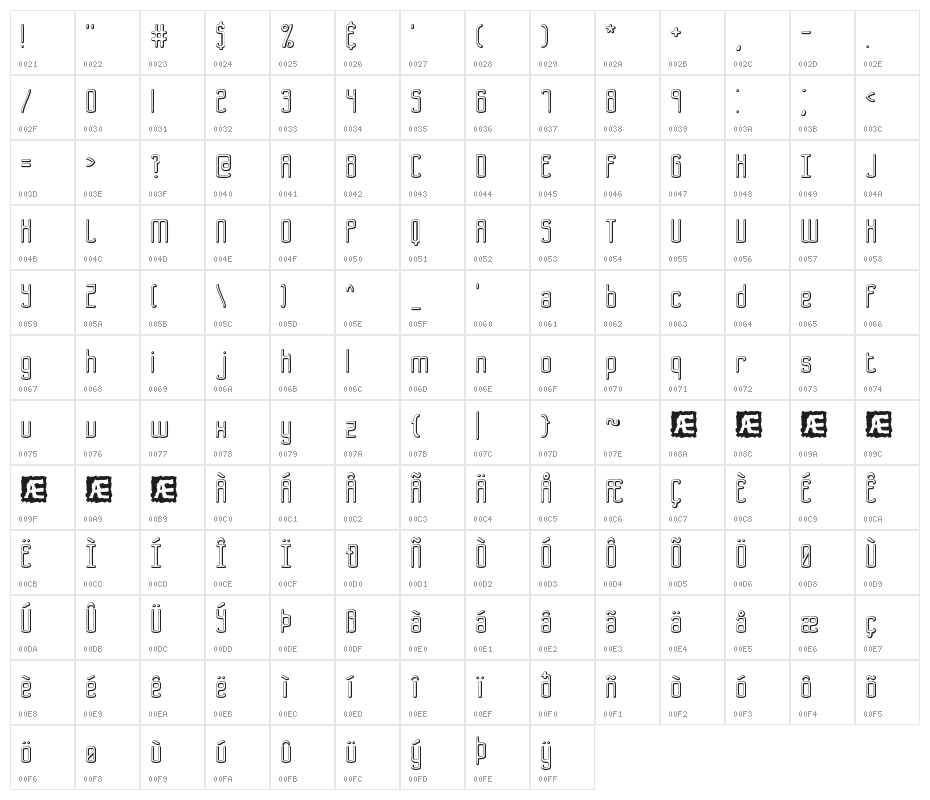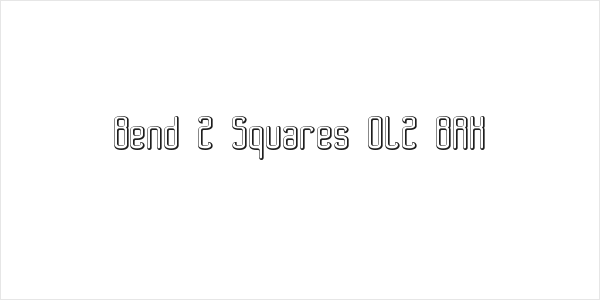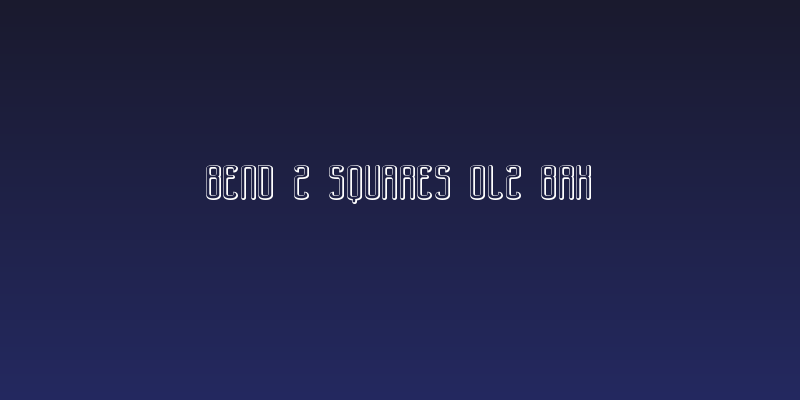
Bend 2 Squares OL2 BRK Font
Bend 2 Squares OL2 BRK Description
This font features a unique, outlined style with rounded edges and a geometric structure. Each character is crafted with a consistent line thickness, creating a cohesive and modern appearance. The uppercase and lowercase letters maintain a uniform height, contributing to a clean and organized look. The numerals and special characters are designed to match the overall aesthetic, ensuring versatility across various applications. The font's open and airy design makes it suitable for both digital and print media, providing a contemporary touch to any project.